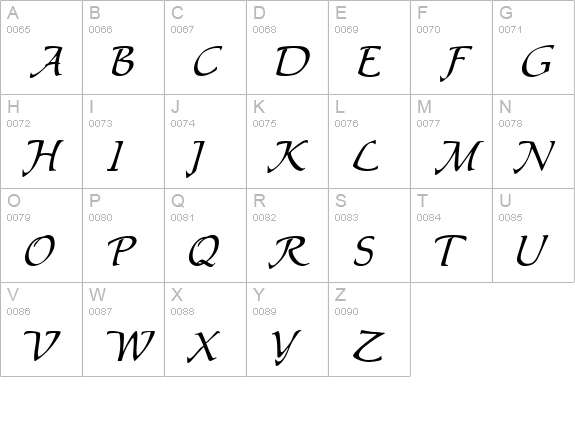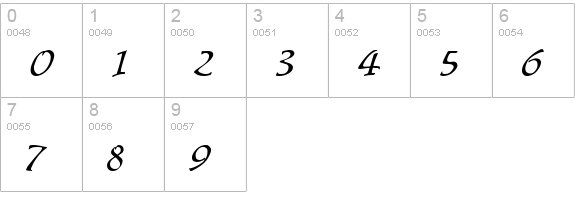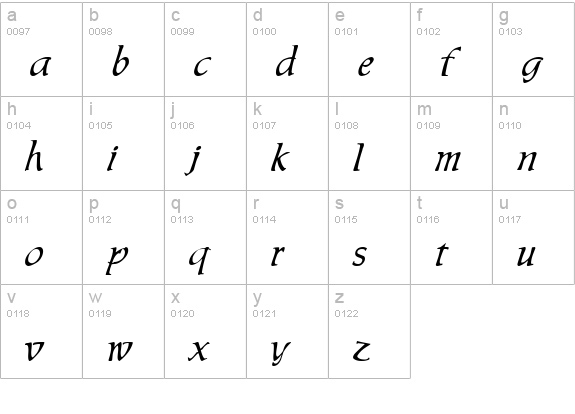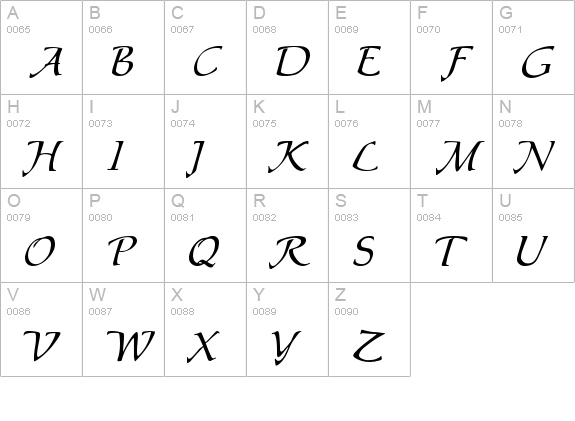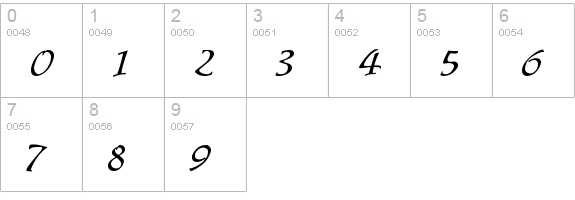
TR Chaucer Font Details
TR Chaucer is a timeless font that exudes elegance and sophistication. Inspired by classic typography, this font features graceful strokes and refined details that make it perfect for adding a touch of sophistication to any project. Its versatile design makes it ideal for a wide range of applications, from invitations and stationery to branding and packaging. What sets TR Chaucer apart is its seamless blend of tradition and modernity, making it a truly timeless choice for all your design needs. Whether you're crafting a vintage-inspired wedding invitation or a sleek and contemporary logo, this font is sure to elevate your work to the next level. Best of all, TR Chaucer is available for free download at FontsMarket.com, allowing you to access this stunning font with ease. Don't miss out on the opportunity to enhance your designs with the beauty and elegance of TR Chaucer – download it today and see the difference it can make!